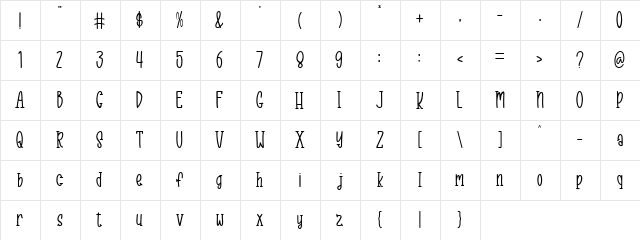
Sunday Special Regular
Design Context for Sunday Special Typeface
Sunday Special is a composed and adaptable typeface that performs quietly and consistently across a wide range of design contexts.